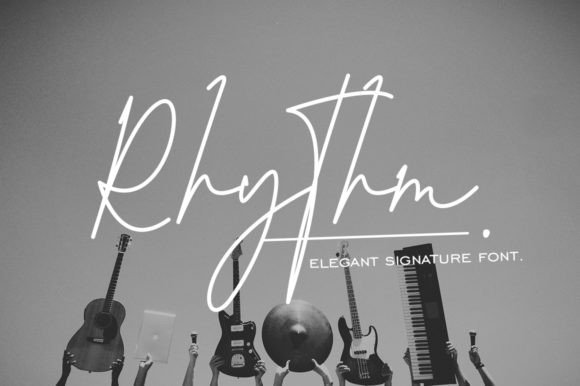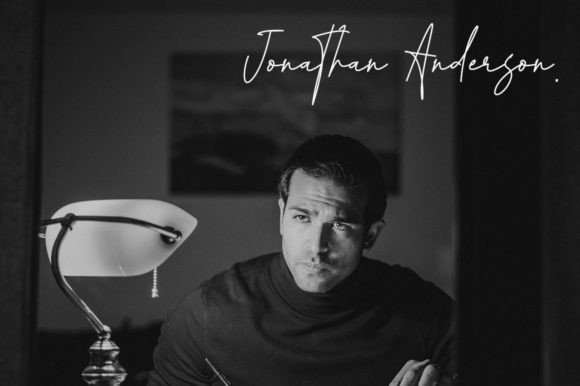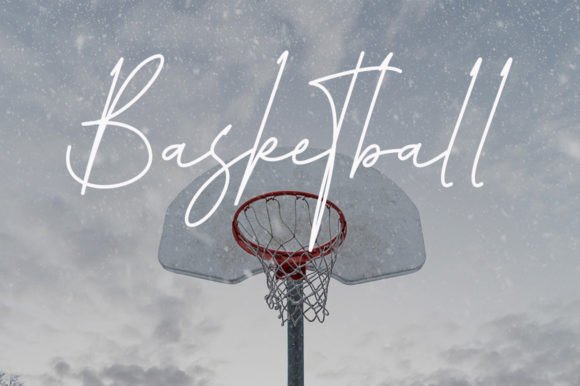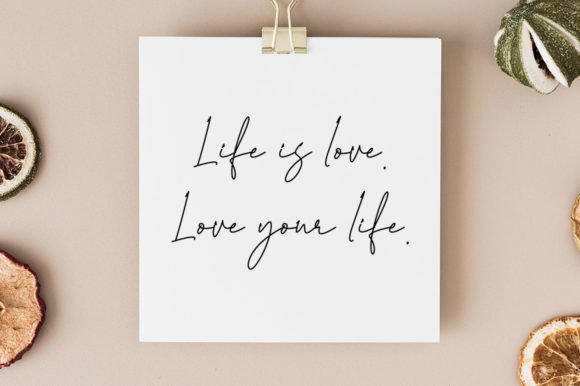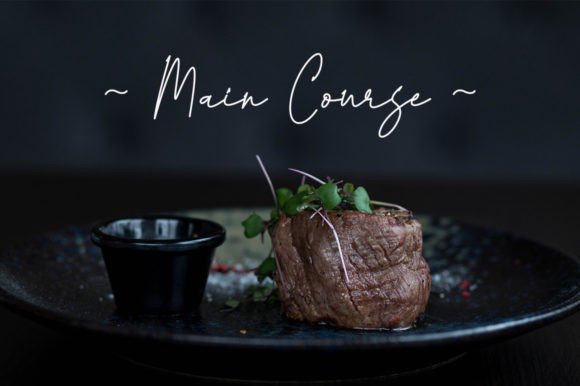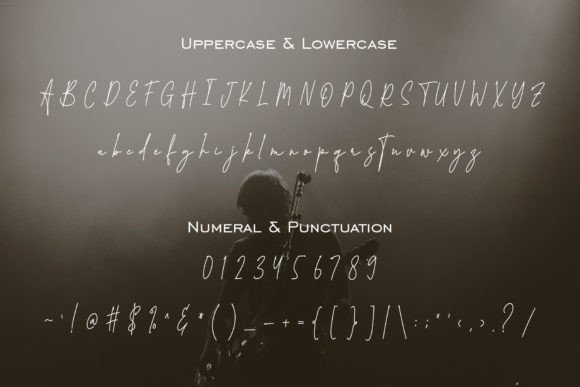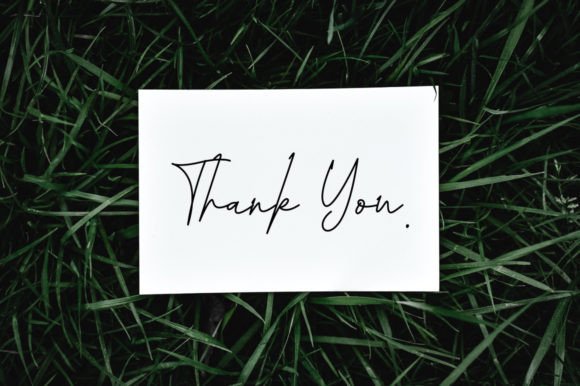
Rhythm Font
About Rhythm Font
Introducing “Rhythm,” a signature font with a distinctive and strong character, reminiscent of a stroke and an artist’s signature. This font is crafted to bring a touch of elegance and style to your classy projects, making it perfect for adding a sophisticated flair to your designs.
The unique and strong character of “Rhythm” sets it apart, making it an ideal choice for projects that demand a signature touch. Whether you’re working on invitations, branding, logos, or any other creative endeavor, this font adds a layer of elegance that complements your projects beautifully.
Incorporate “Rhythm” into your designs and experience how it elevates the overall aesthetic with its signature-like strokes. This font is designed to be versatile, enhancing a wide range of projects where an elegant and stylish typeface is desired.
In summary, “Rhythm” is more than just a font; it’s a creative asset designed to bring a signature touch to your projects. Download “Rhythm” now and explore how it can enhance your classy projects, invitations, branding, and various other creative endeavors. With its strong character and elegance, this font is ready to make a lasting impression in your design work.